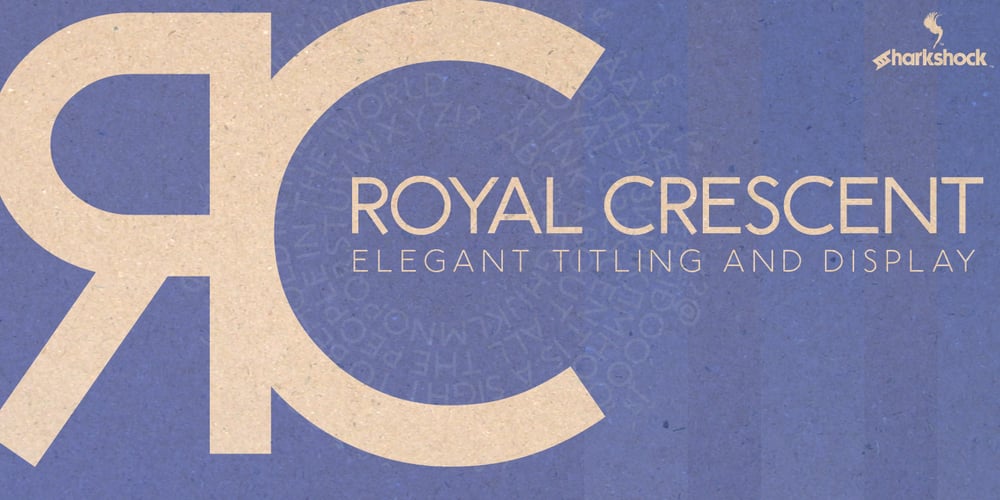
Royal Crescent
Royal Crescent font
Royal Crescent Font Family was designed by Dennis Ludlow and published by Sharkshock. Royal Crescent contains 3 styles and family package options. Royal Crescent is an all caps display sans with an emphasis on elegance and simplicity. The uniform width is consistent throughout creating low contrast in all three weights. There are slight variations, between a few upper and lowercase characters which can be used interchangeably. Titling was its primary purpose but will prove useful in a variety of situations. Use it for web headers, a magazine, or a luxury logo. This family is equipped with Basic/Extended Latin, punctuation, symbols, diacritics, Cyrillic, kerning, and fractions.